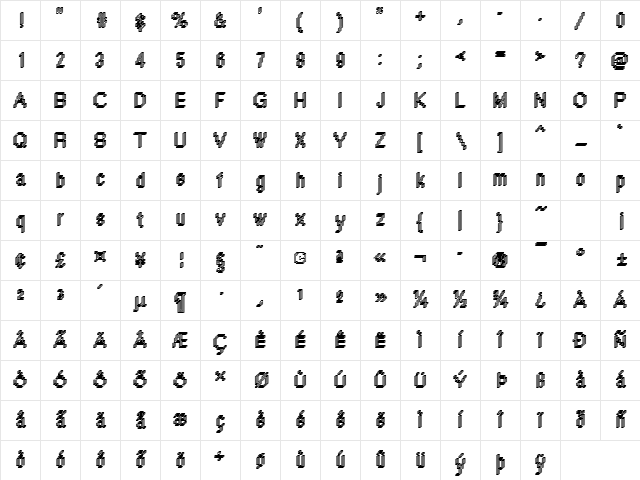
Complete DTCRoughM44 Regular glyph index. Displaying only characters natively supported by DTCRoughM44 Regular font.
DTCRoughM44 embraces imperfection - its rough, textured character adds raw authenticity to designs that want to feel lived-in and unconventional.
Pro Tip: Use DTCRoughM44 at larger sizes where the texture and irregularity of each letterform can be clearly seen - it loses its character at small sizes.